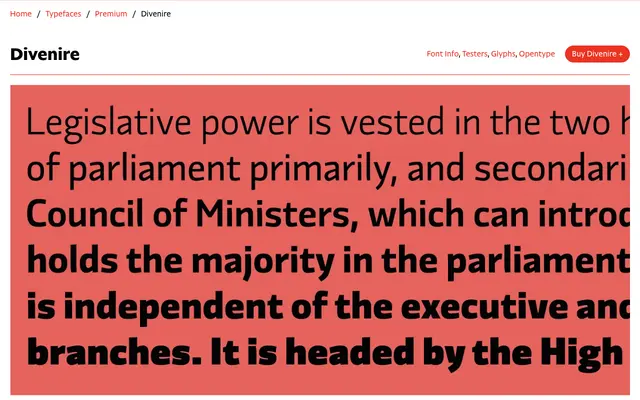
Divenire
CAST · Luciano Perondi · 2012
An organic display sans by Luciano Perondi, originally created for the brand identity of the Partito Democratico Italiano, with squarish irregular letterforms and 28 distinct ampersands.
Designed in collaboration with FF3300 studio for an Italian political party, the face turns deliberate inconsistency into a coherent visual voice: horizontal terminations, angular junctures and alternating curved and straight strokes give it a lively rhythm that holds up in text settings as well as display. The family spans seven weights from Light to Black with matching italics, a variable font version, and 1264 glyphs including an expressive punctuation system with named marks such as Irony, Doubt and Love drawn as a nod to Hervé Bazin. OpenType features include multiple stylistic sets, oldstyle and tabular figures, and contextual alternates for directional arrows.
Described by the foundry as a sanserif display face with squarish, irregular and discontinuous letterforms; its deliberate lack of uniformity and organic construction place it firmly in the display category rather than a conventional grotesque or geometric sans.